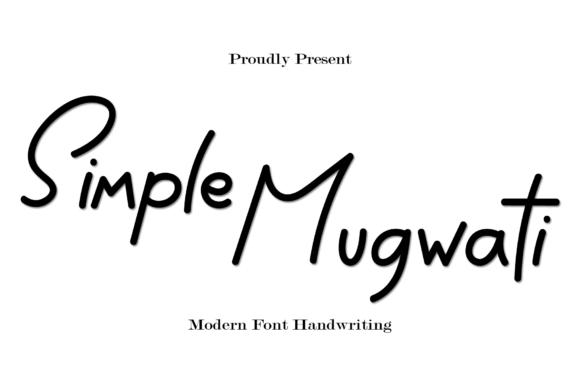
Introducing Simple Mugwati Font, a remarkable script font that exudes elegance and charm. Crafted by the talented RR Studio, this font is a true gem, designed to elevate your creative projects to new heights.
With its flowing lines and delicate curves, Simple Mugwati Font possesses a timeless beauty that transcends trends. It's the perfect choice for wedding logos, adding a touch of sophistication and romance to your special day. Imagine your wedding invitations adorned with this font, capturing the essence of your love story in every letter.
Simple Mugwati Font is not just limited to wedding logos. Its versatility knows no bounds. Whether you're creating branding materials, social media graphics, or heartfelt cards, this font will add a touch of charm and distinction to your designs. It's a versatile font that effortlessly enhances any project, making it a must-have for creative professionals and design enthusiasts alike.
This font's simplicity is its strength. It allows your words to shine, conveying your message with clarity and impact. Whether you're designing a logo, creating marketing materials, or simply expressing your creativity, Simple Mugwati Font will help you make a lasting impression.